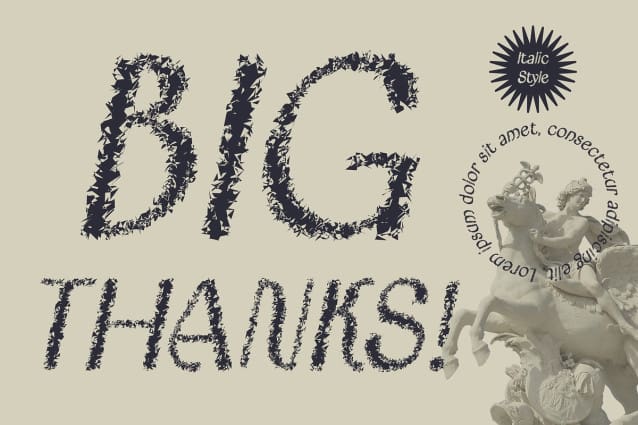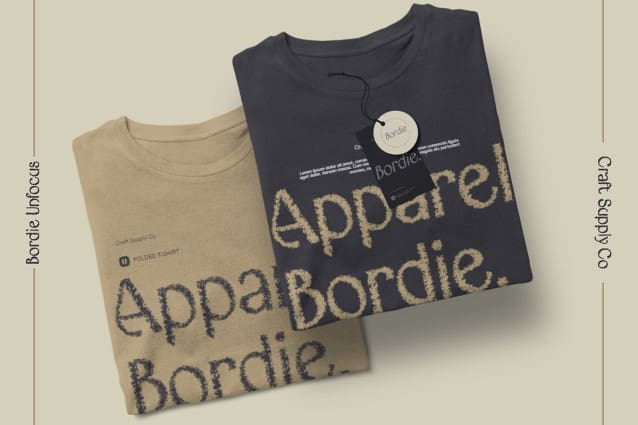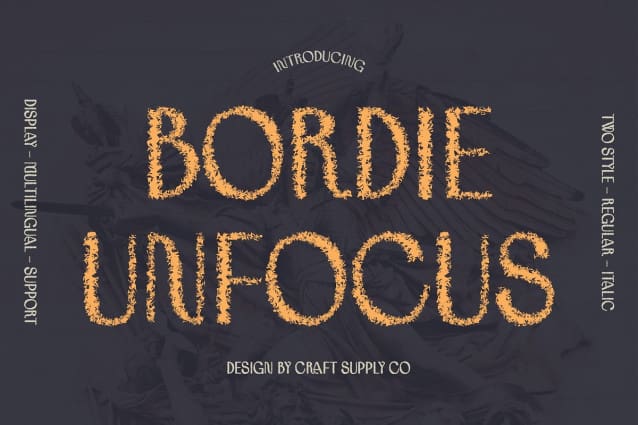
Bordie Unfocus Font
Bordie Unfocus Font: A Unique Display Typeface. Dynamic Condensed Sans Serif Bordie Unfocus features a condensed sans serif style that exudes modernity and efficiency. Its compact design ensures maximum impact in display applications.
Unfocused Elegance With its distinct unfocus effect, This font adds a touch of sophistication to any project. The blurred edges create a unique visual appeal, setting it apart from traditional fonts.
Perfect for Display Needs Tailored for display purposes, This font shines in various contexts, from advertising banners to digital interfaces. Its condensed form ensures readability while maintaining a sleek appearance.
Versatile Application Beyond its captivating appearance, This font offers versatility in application. Whether used in branding, editorial design, or web layouts, its unfocused style adds intrigue and visual interest.
Modern Twist on Display Typography This font emerges as a modern and distinctive choice for display typography. With its condensed sans serif form and unique unfocus effect, it brings a fresh perspective to design projects, offering both elegance and functionality. Step into the world of This font and elevate your designs with its dynamic flair.